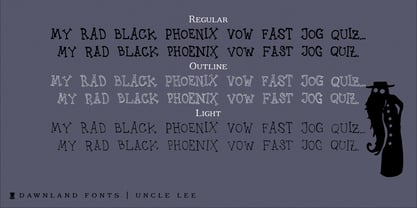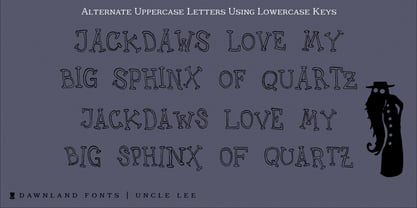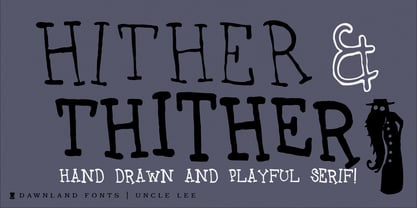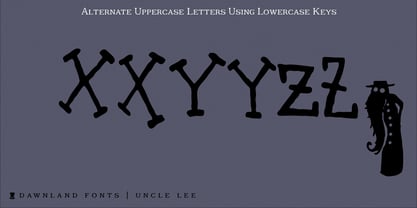
Uncle Lee
par Dawnland
La famille de polices Uncle Lee a été conçue par Daniel Viberg et publiée par Dawnland. Uncle Lee contient 3 styles et options de package familial.
Meet Uncle Lee - a hand drawn and playful serif! An upper-case-only font with upper-case-variants on the lower-case letters. With three happy versions - regular, outline & thin - you just can't go wrong! Don't forget to pay
Auntie Lee
a visit!
À propos Dawnland
Creating visual experiences since 1999, Dawnland – Daniel Viberg – works with identity, lettering, fonts, and illustration. Daniel is a graphic designer with a vivid interest in graphic storytelling, which won’t go unnoticed in his productions. This has resulted in a lot of imaginative illustrations, as well as cards and games. His inspiration comes from Swedish folklore and music, from books, films and stories, as well as from all the members of his family. The recent years Daniel has evolved to further embrace the crafting of letters by hand, pens and paper.